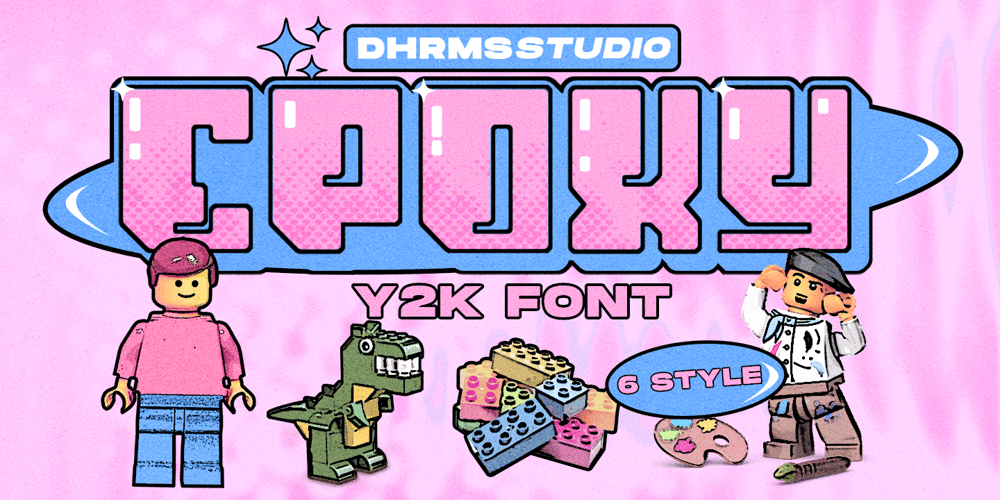
Epoxy
Epoxy font
Epoxy Font Family was designed by Ahmad Jamaludin and published by Ahmad Jamaludin. Epoxy contains 6 styles and family package options. EPOXY – A font that exudes the playful and iconic vibes of the y2k era, inspired by the beloved Barbie cartoon style, where all hues are dipped in pretty pink. With 6 captivating styles for each type – Regular, Italic, Outline, Extrude, Outline Italic, and Extrude ItalicFeatures: Epoxy Main File Has 6 Variable: Regular, Italic, Outline, Extrude, Outline Italic, and Extrude Italic Instructions (Access special characters, even in Cricut Design) Simple Installations PUA Encoded Characters Dharmas Studio